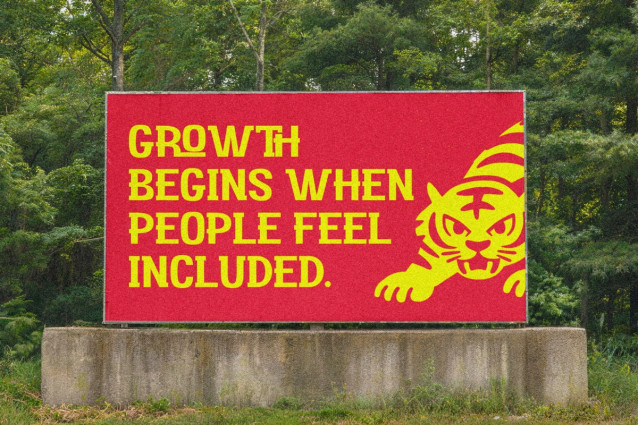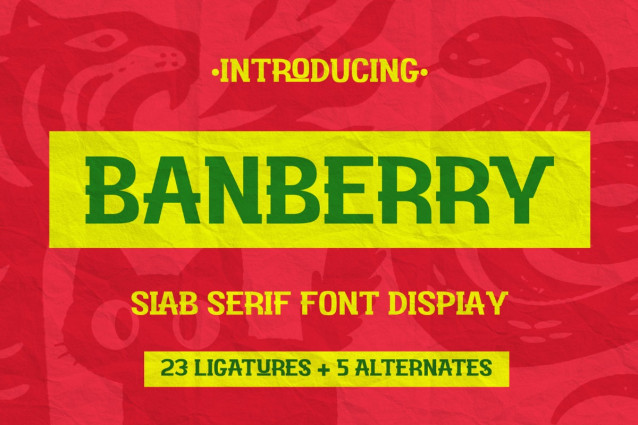
Banberry Font
Banberry Font is a slab serif display font that blends bold structure with a confident, eye-catching style. Its strong serifs and balanced proportions give it a solid yet friendly character, making it perfect for headlines, logos, posters, packaging, and branding projects that need to stand out. With its distinctive presence and versatile appeal, Banberry adds clarity, strength, and personality to any design.